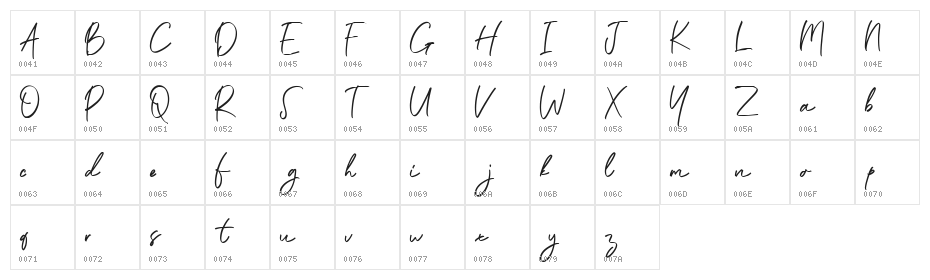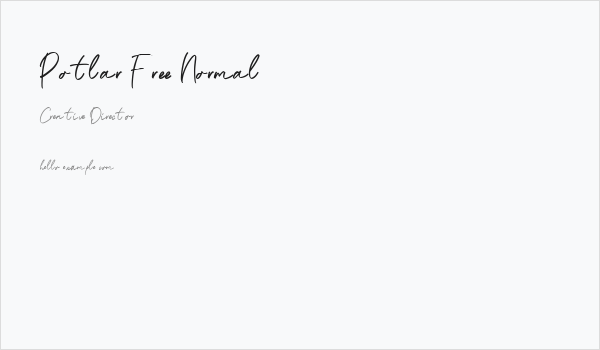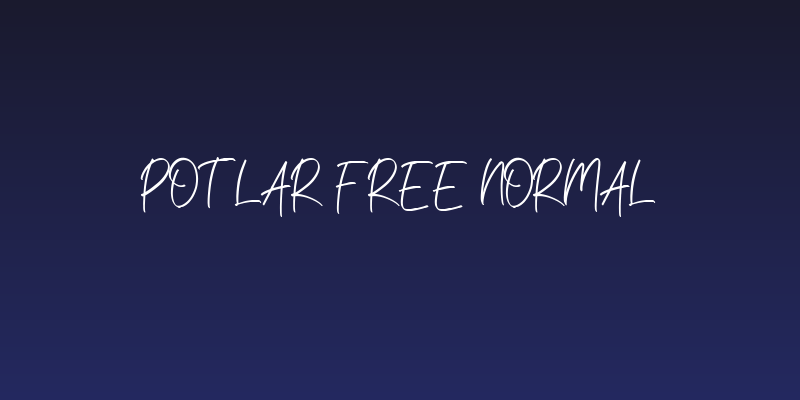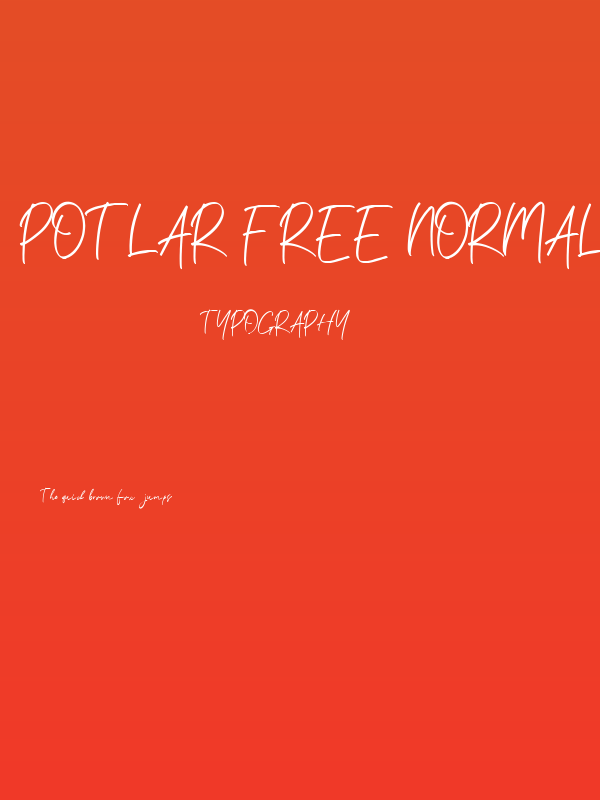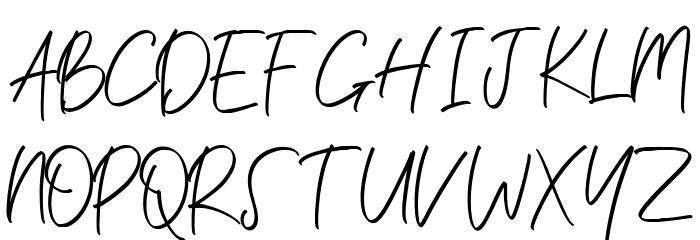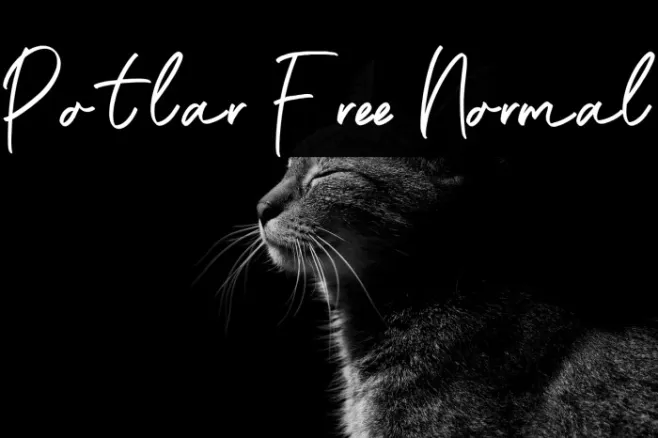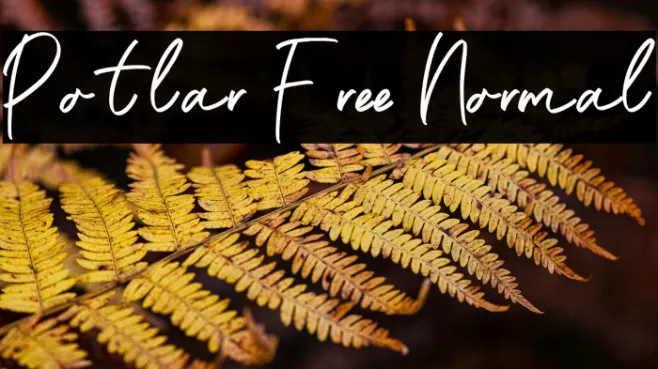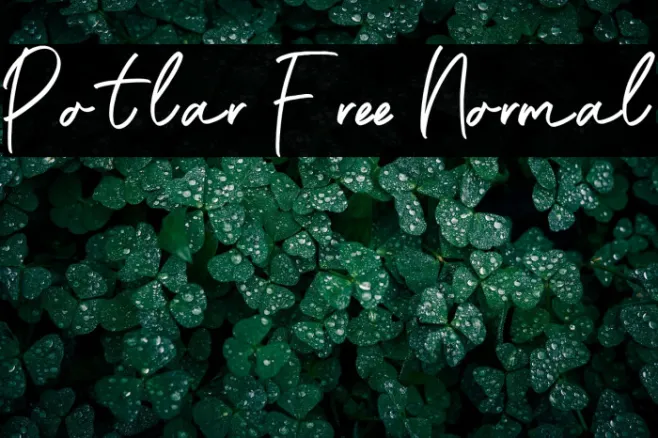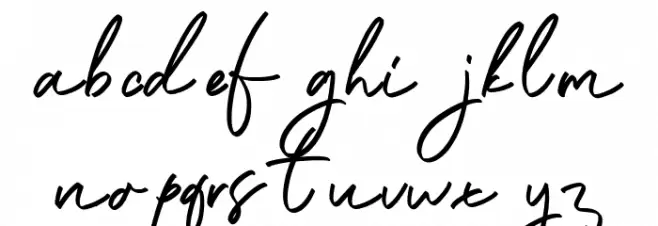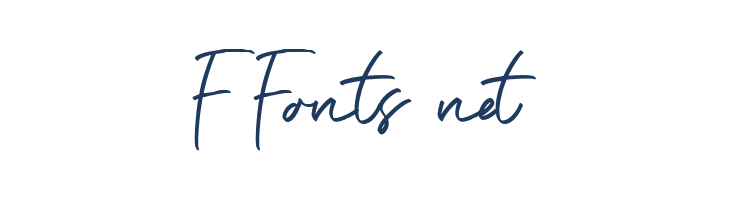
Potlar Free Normal Font
Potlar Free Normal Description
A casual, handwritten script font with a natural flow and slight variations in stroke width, giving it a personal and informal feel.
| Overall Style | Casual, Informal |
| Use Case | Invitations, Personal notes |
| Proposed Projects | Invitations, personal notes, casual branding. |